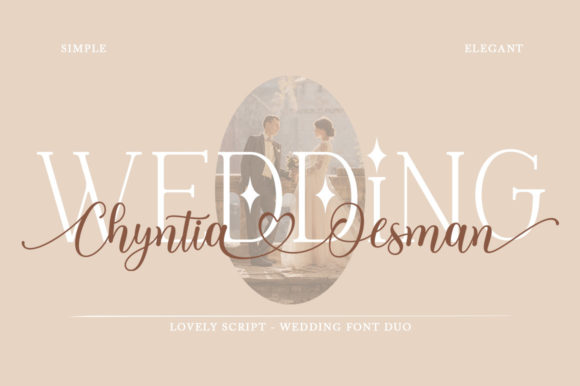
Introducing Wedding Chyntia Oesman Font, the captivating script font that will transform your wedding-themed designs into timeless masterpieces. This modern yet classic font is a labor of love by Struggle Studio, meticulously crafted to capture the essence of romance and sophistication.
Journey into a world of elegance with Wedding Chyntia Oesman Font. Its graceful strokes exude charm and personality, while its carefully balanced curves evoke a sense of harmony and beauty. Imagine your wedding invitations adorned with this exquisite script, inviting guests to an unforgettable celebration.
Let Wedding Chyntia Oesman Font narrate your love story through branding and logos. Its versatility extends beyond the wedding realm, making it suitable for a wide range of creative projects. Whether you're designing promotional materials, product packaging, or heartfelt signatures, this font will elevate your designs with its timeless appeal.
With Wedding Chyntia Oesman Font, you'll discover a font that speaks to the heart. Its organic handwritten style exudes authenticity and warmth, drawing your audience into an emotional connection with your brand. It's the perfect choice for wedding invitations, ensuring that your special day is remembered for its elegance and attention to detail.
Step into a world of creative possibilities with Wedding Chyntia Oesman Font. Its modern simplicity and originality will spark your imagination, allowing you to create designs that leave a lasting impression. Join countless designers and tastemakers who have chosen this font to elevate their projects.